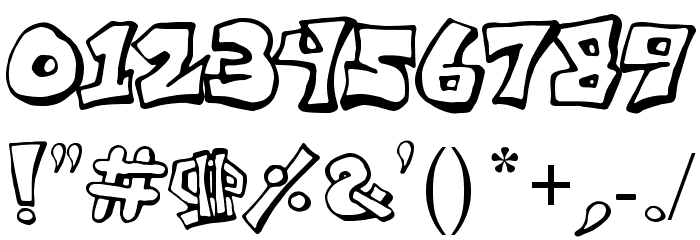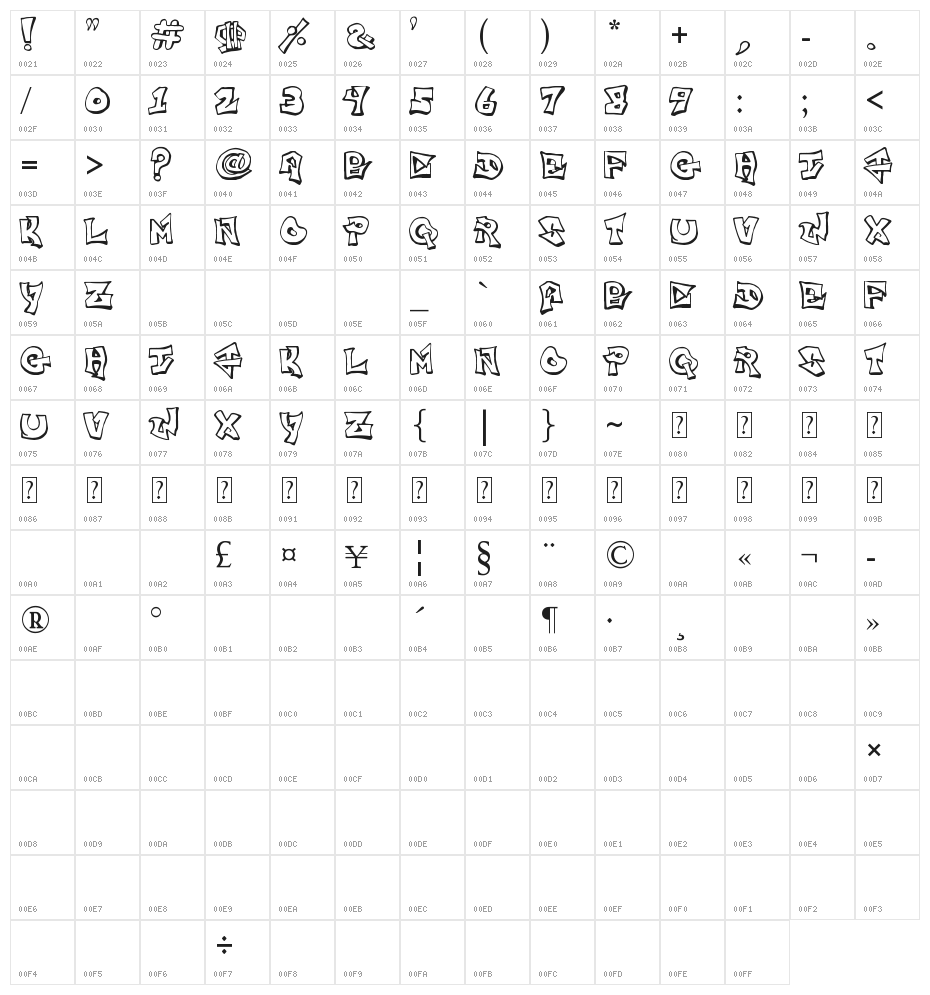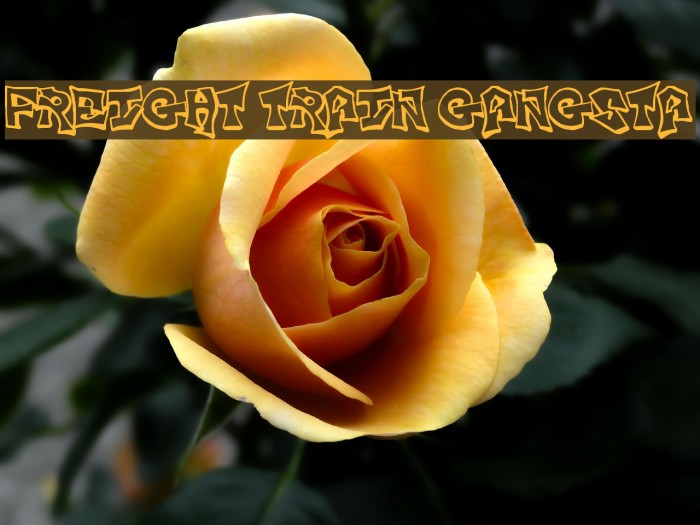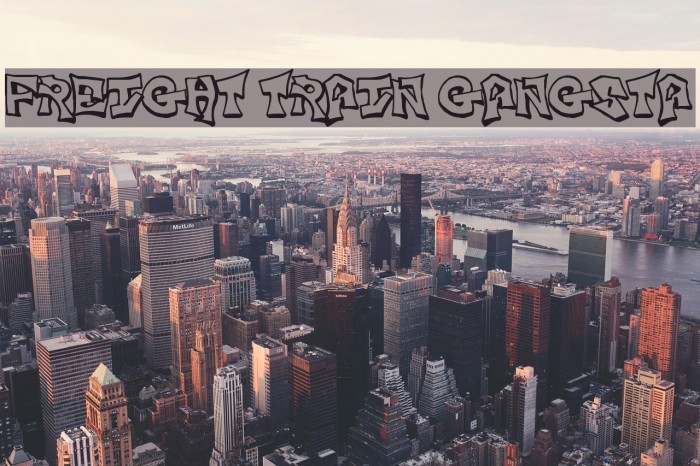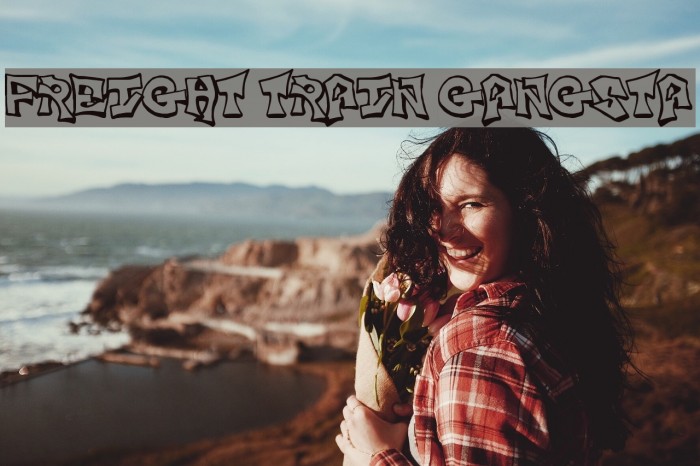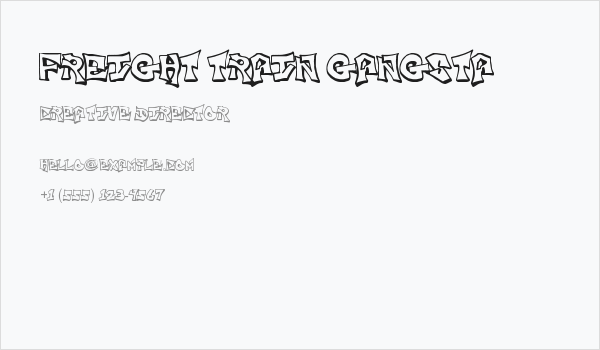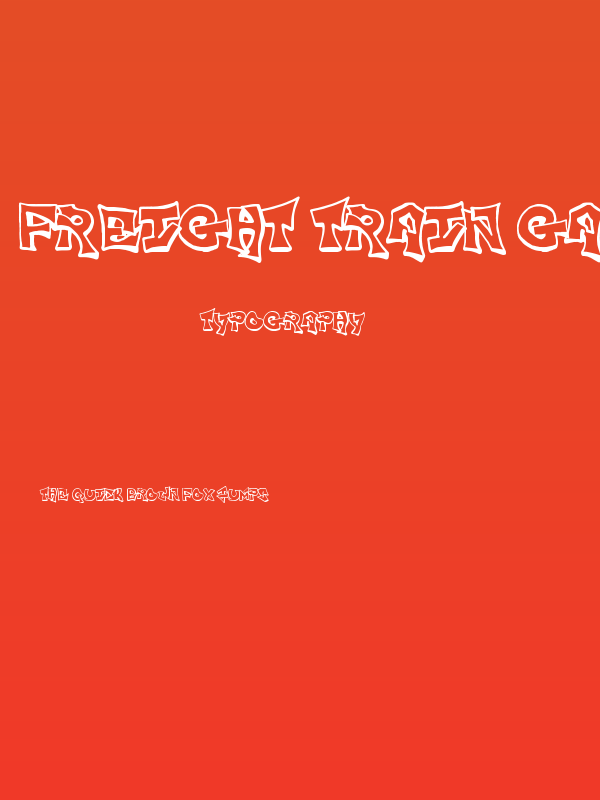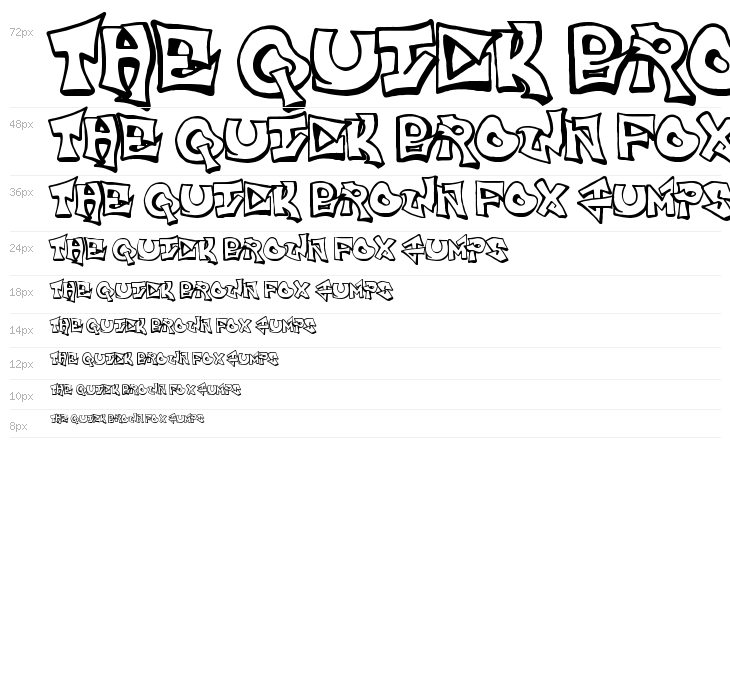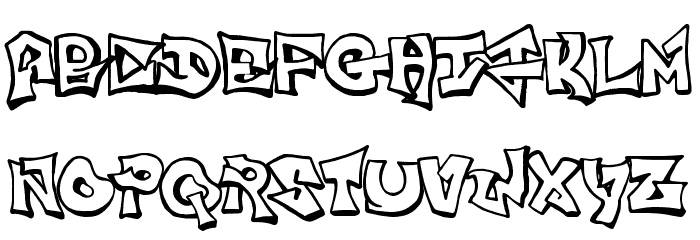
Freight Train Gangsta Font
Freight Train Gangsta Description
This font exudes a bold, urban graffiti style with its thick, angular strokes and dynamic shapes. The letters are designed with a sense of movement and energy, featuring sharp edges and a slightly three-dimensional appearance. The uppercase and lowercase letters maintain a consistent style, while the numbers and special characters complement the overall aesthetic. The font's design is reminiscent of street art, making it ideal for projects that require a strong, rebellious, and artistic touch.
| Overall Style | Urban, Graffiti, Bold |
| Use Case | Logos, Posters, Headlines |
| Proposed Projects | Perfect for street art-inspired designs, music album covers, urban-themed posters, and edgy branding projects. |